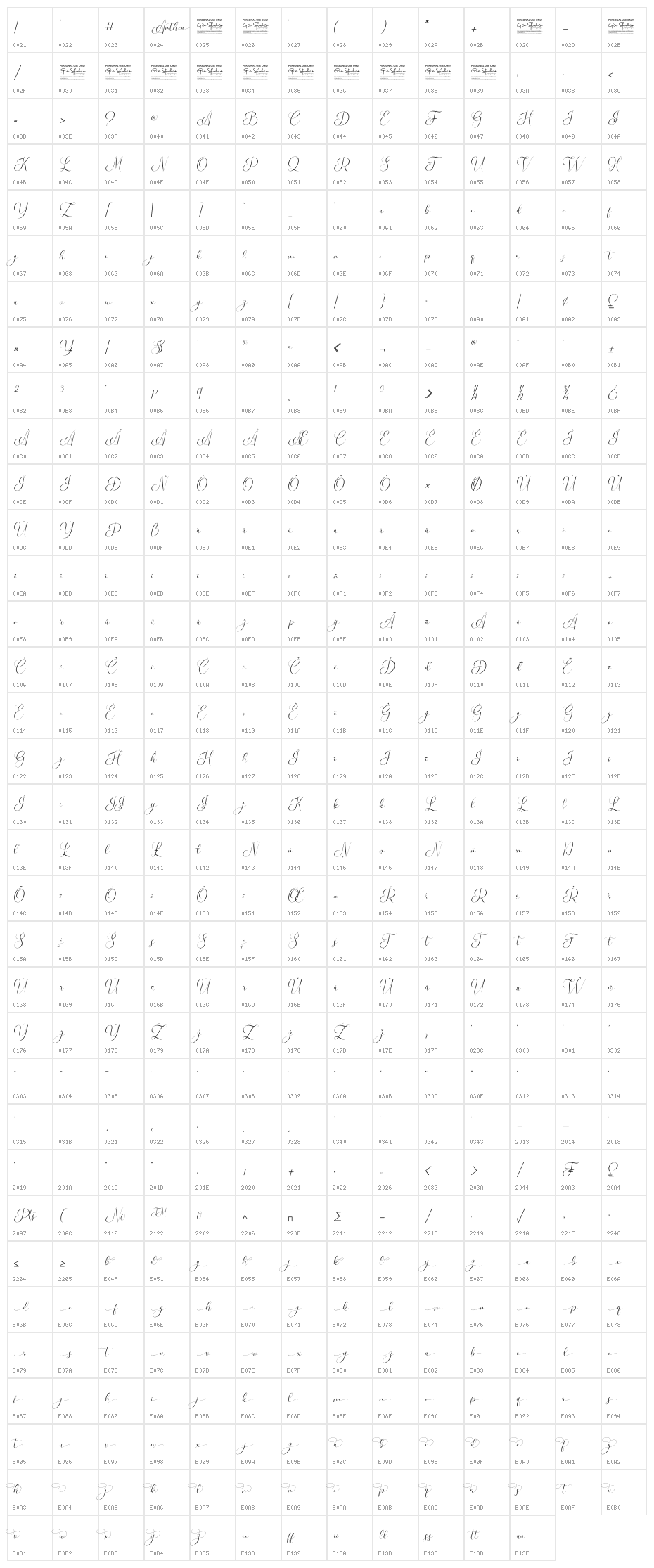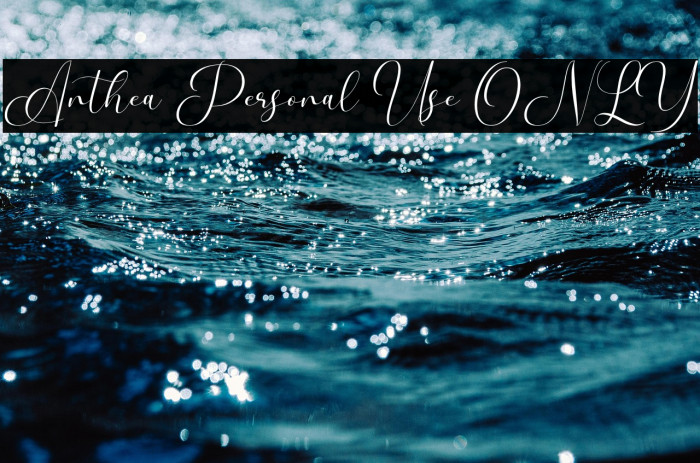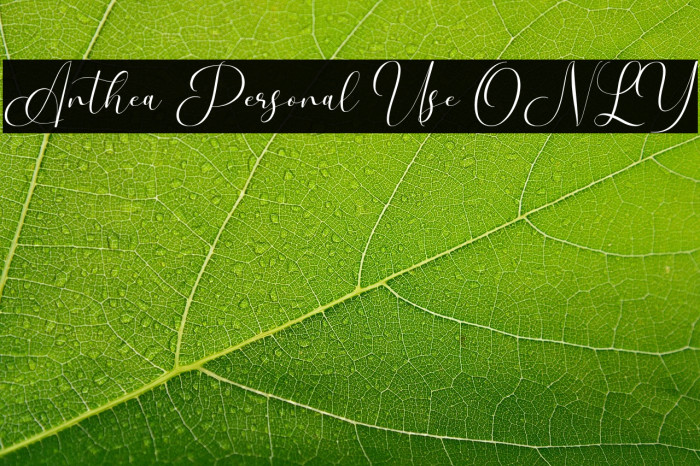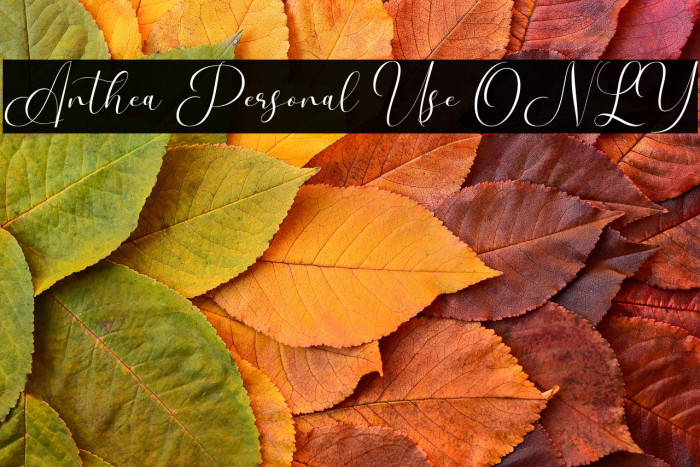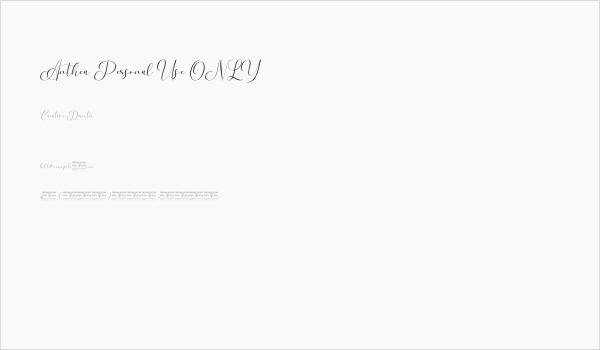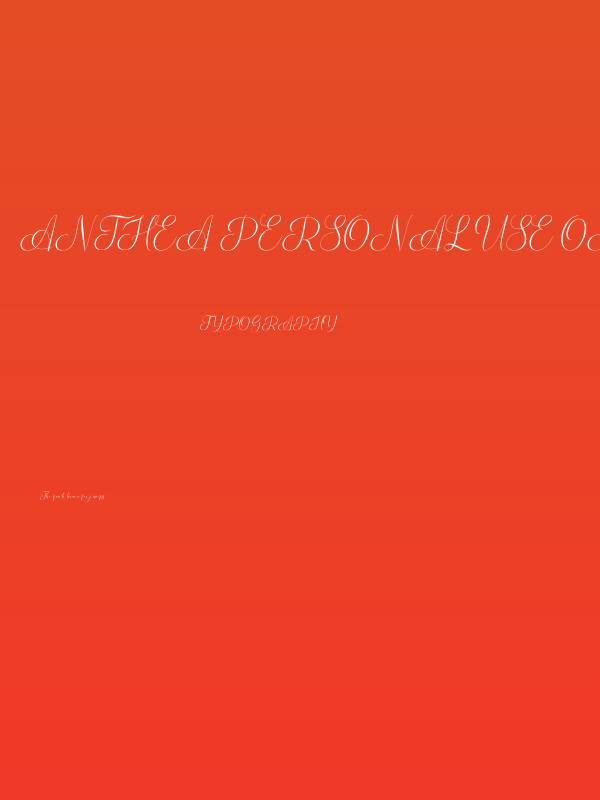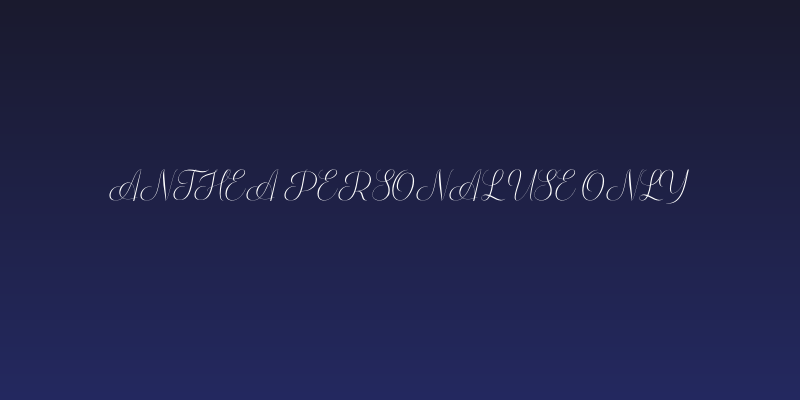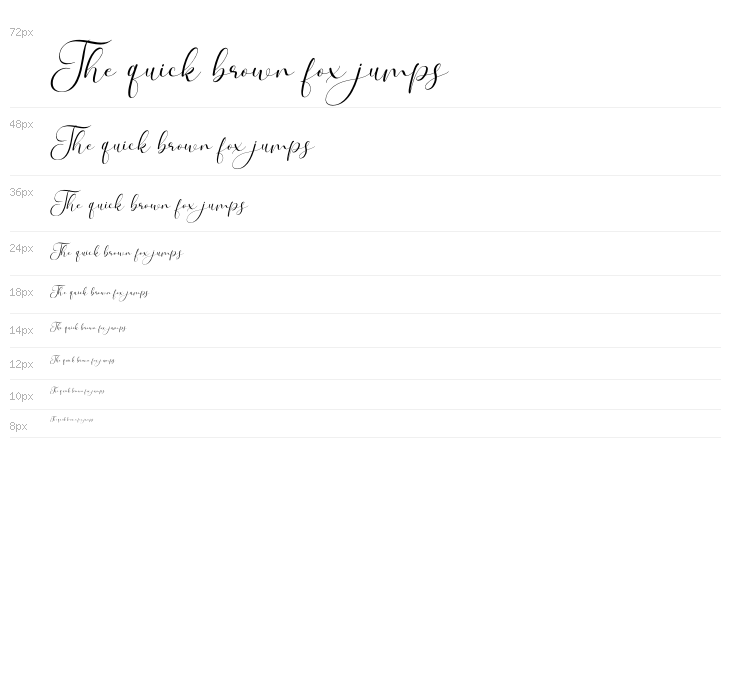
Anthea Personal Use ONLY Font
Anthea Personal Use ONLY Description
This elegant script font features flowing, interconnected letters with a calligraphic style. The uppercase letters are ornate and decorative, with sweeping curves and loops that give a sense of movement and grace. The lowercase letters maintain a consistent style, with smooth, flowing lines that create a harmonious look. The font's overall appearance is sophisticated and refined, making it ideal for formal invitations, elegant branding, and artistic projects. The characters are well-spaced, allowing for readability while maintaining an artistic flair. The font includes a variety of special characters, adding versatility to its use.
| Overall Style | Elegant, Calligraphic |
| Use Case | Invitations, Branding, Artistic projects |
| Proposed Projects | Ideal for wedding invitations, elegant branding, artistic projects, and formal event materials. |